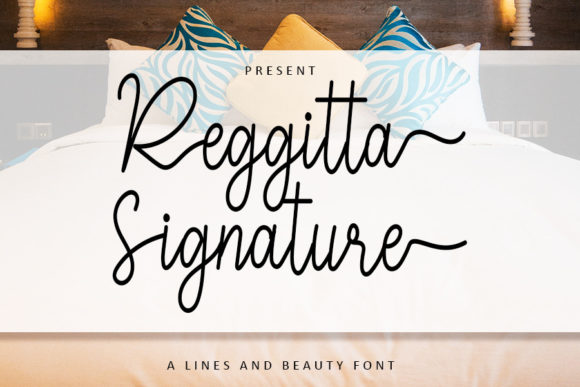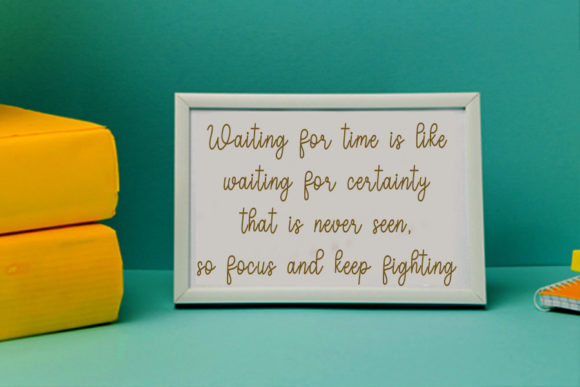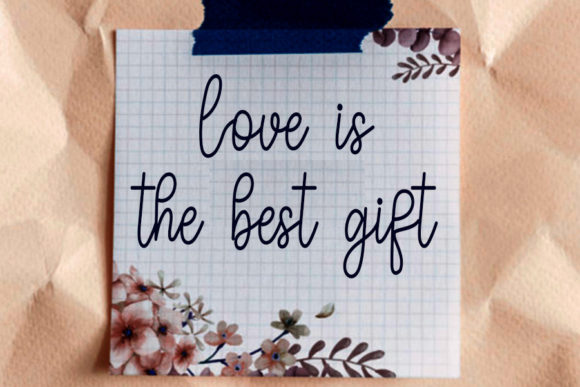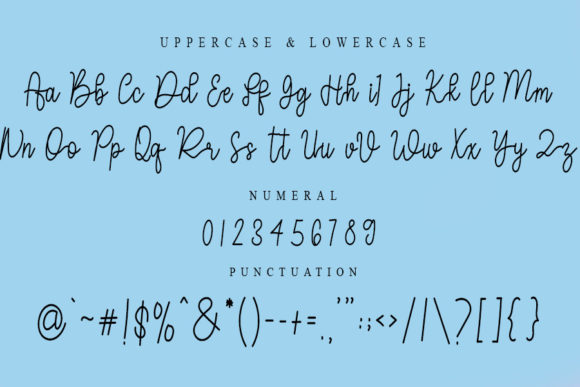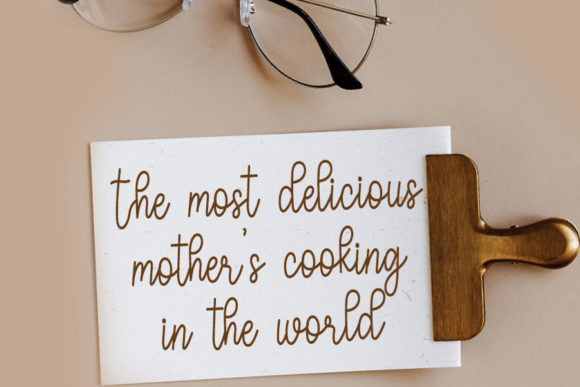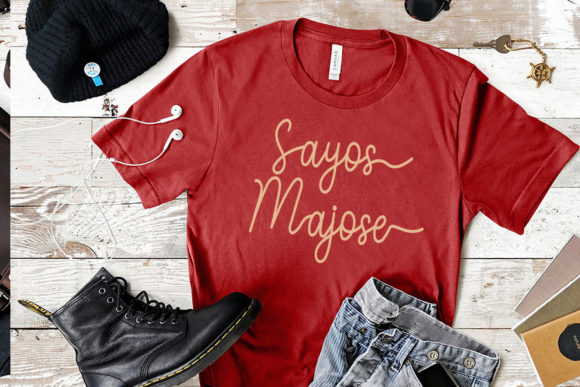
About Reggitta Signature Font
Reggitta Signature is a unique and elegant handwritten font that adds a touch of beauty and sophistication to a variety of designs. With its personalized style, this font is particularly well-suited for projects that require a distinct and personalized touch, such as wedding invitations, thank you cards, greeting cards, logos, and more.
The beauty of Reggitta Signature lies in its handcrafted appearance and the personal touch it brings to your designs. Each letter is carefully crafted, creating an organic and artistic look that adds elegance and authenticity to your creations. Whether you’re designing for weddings, special events, or simply want to infuse your designs with a personal touch, Reggitta Signature is a wonderful choice.
The versatility of Reggitta Signature allows it to shine in a wide range of projects. It beautifully complements wedding invitations, adding a touch of elegance and sophistication. It enhances thank you cards and greeting cards, conveying heartfelt messages with style. And it brings a sense of refinement to logos and branding materials, making your business stand out.
Embrace the unique and elegant nature of Reggitta Signature and let it elevate your designs with its personalized style. Incorporate this font into your projects, and you’ll see how it adds a touch of beauty and authenticity.